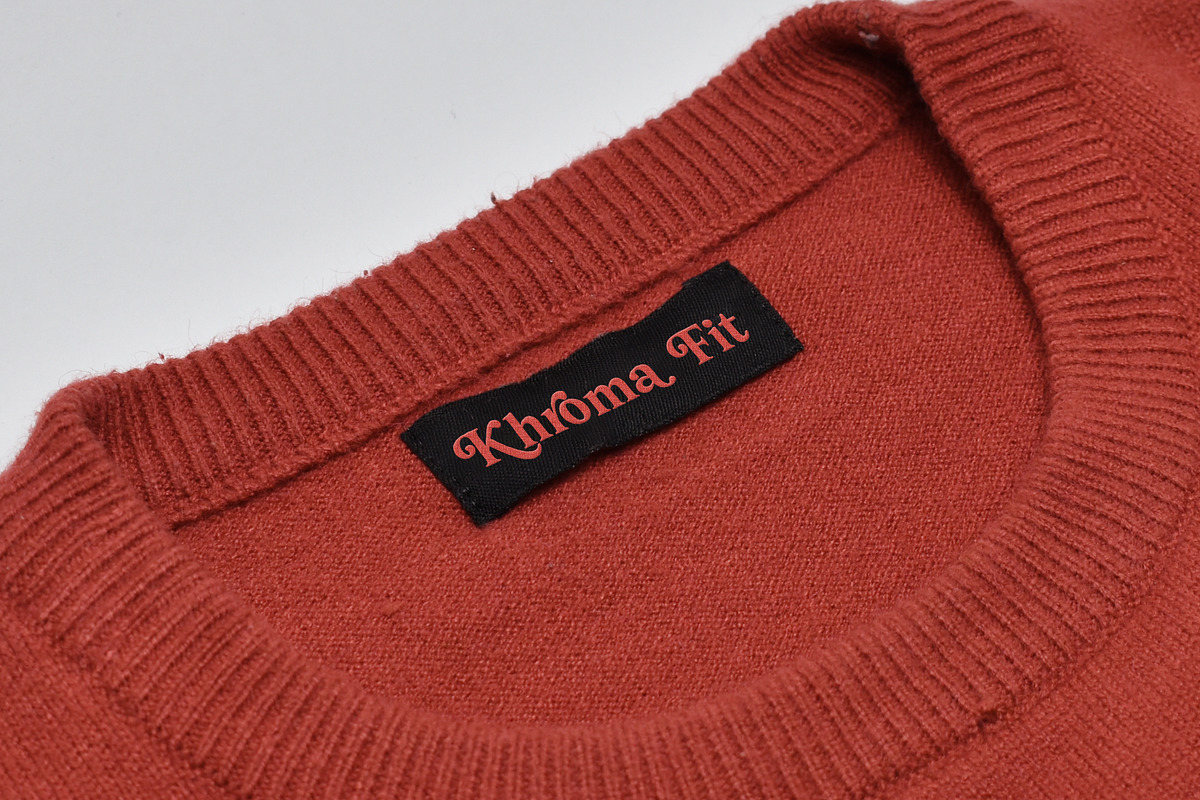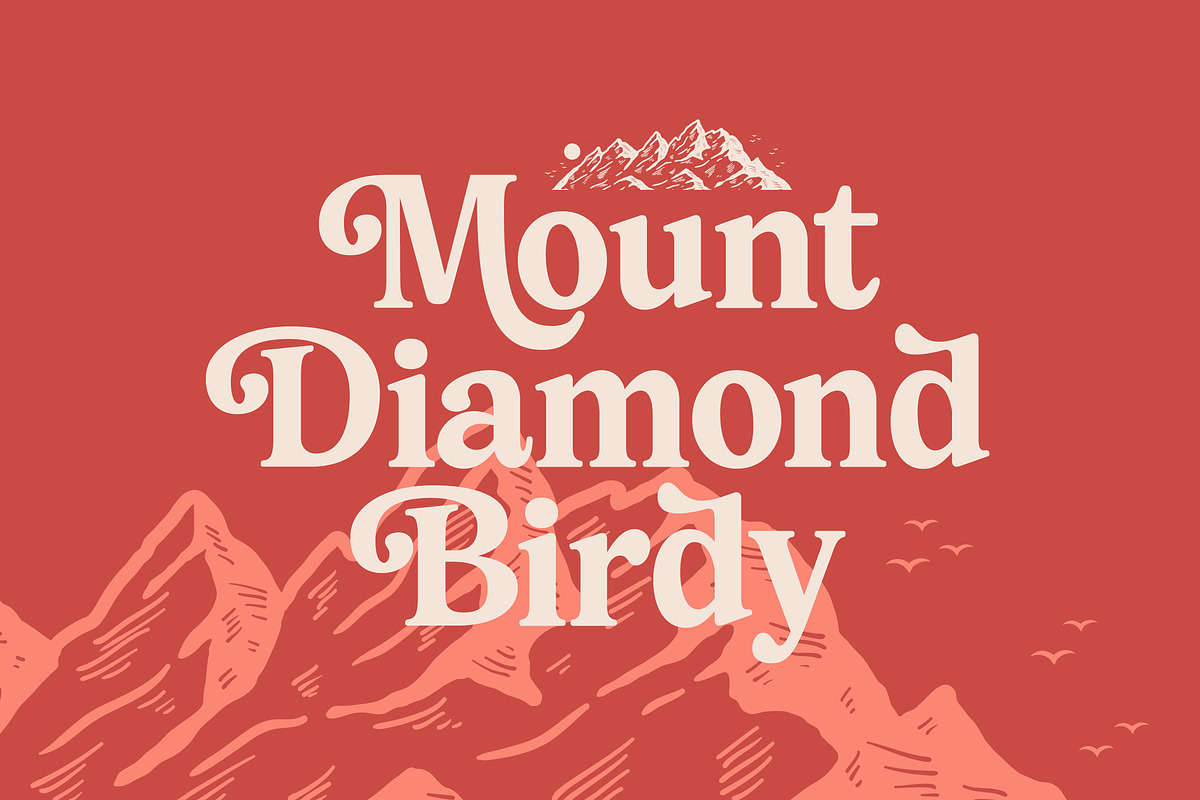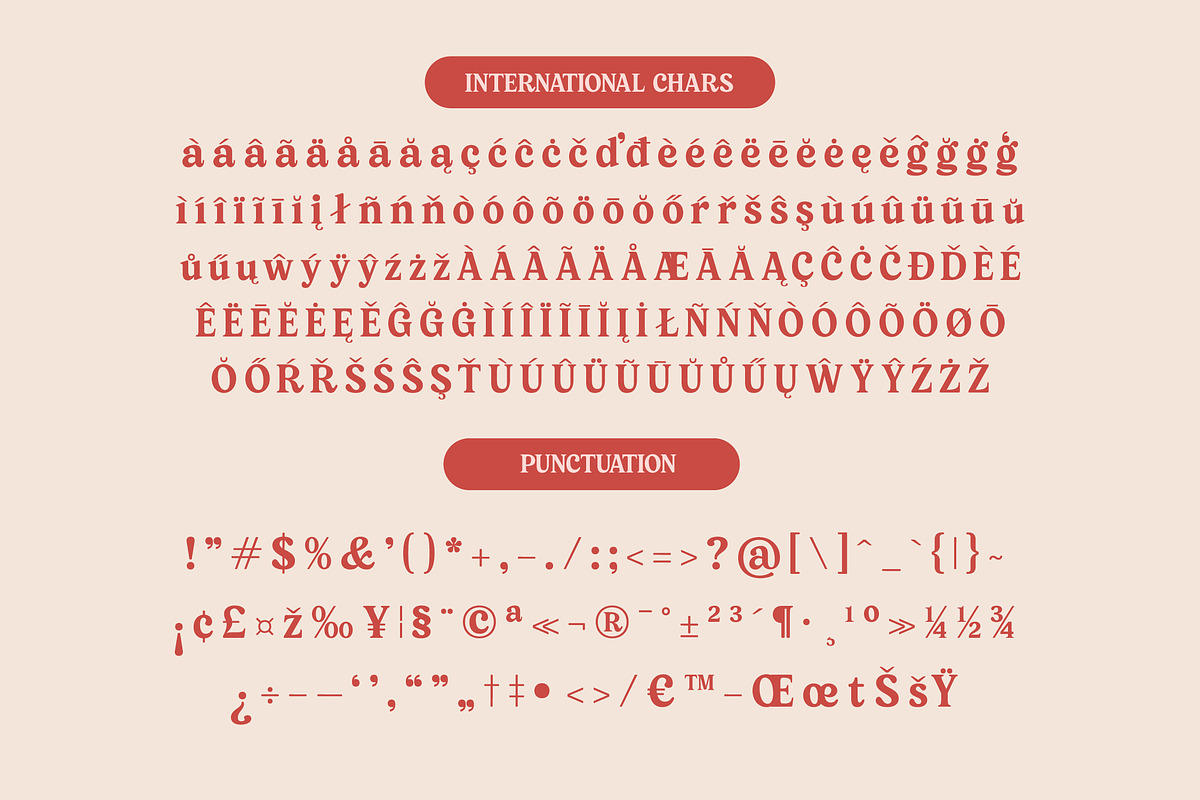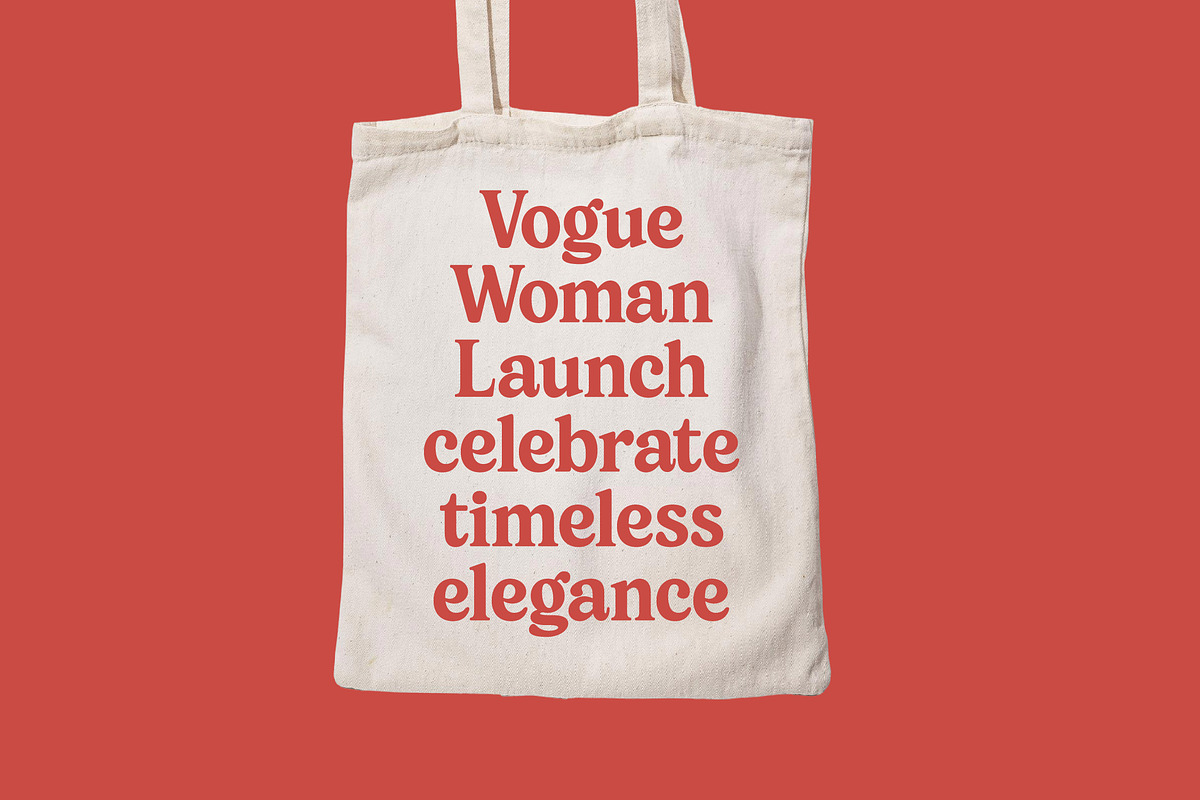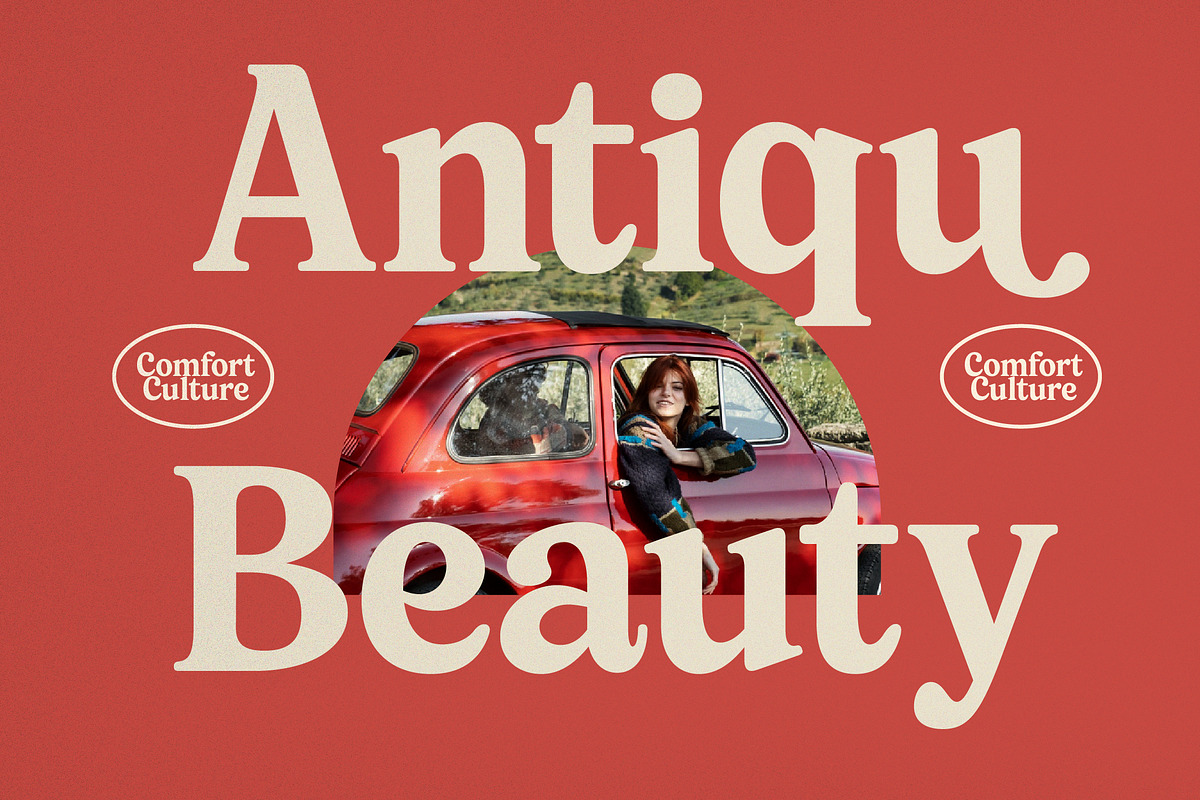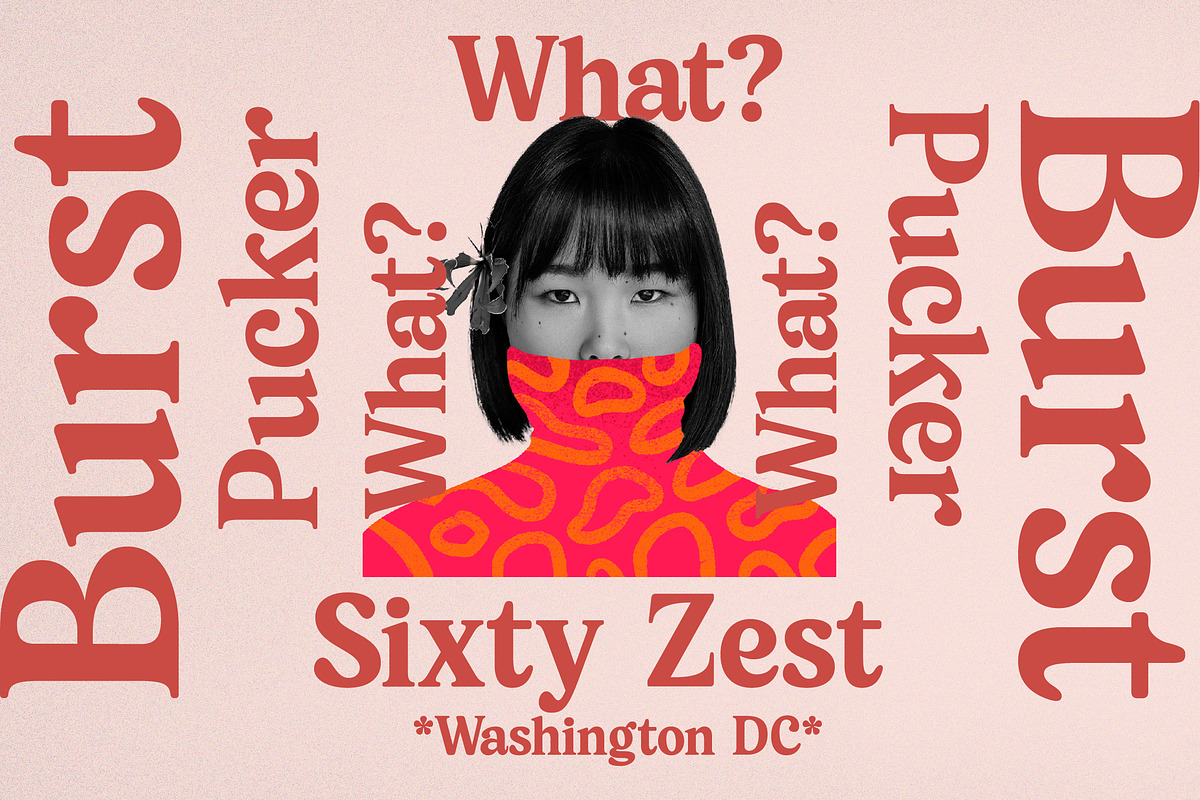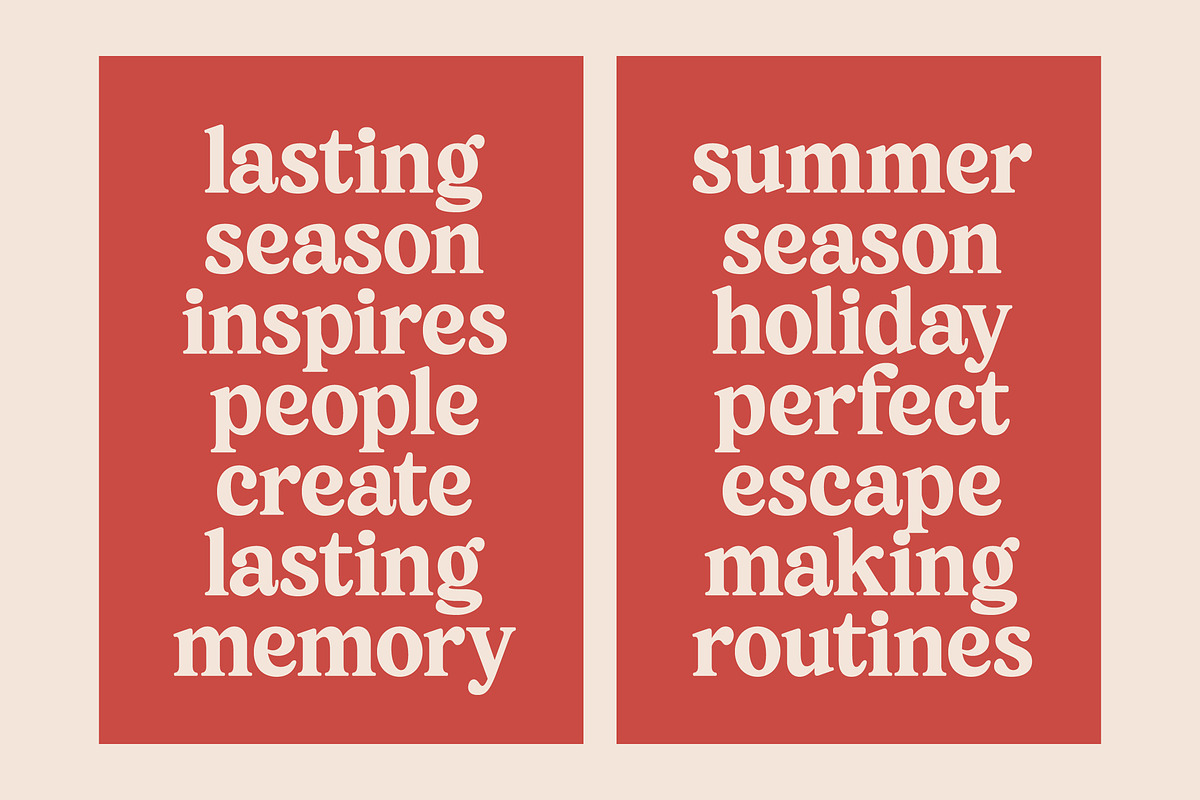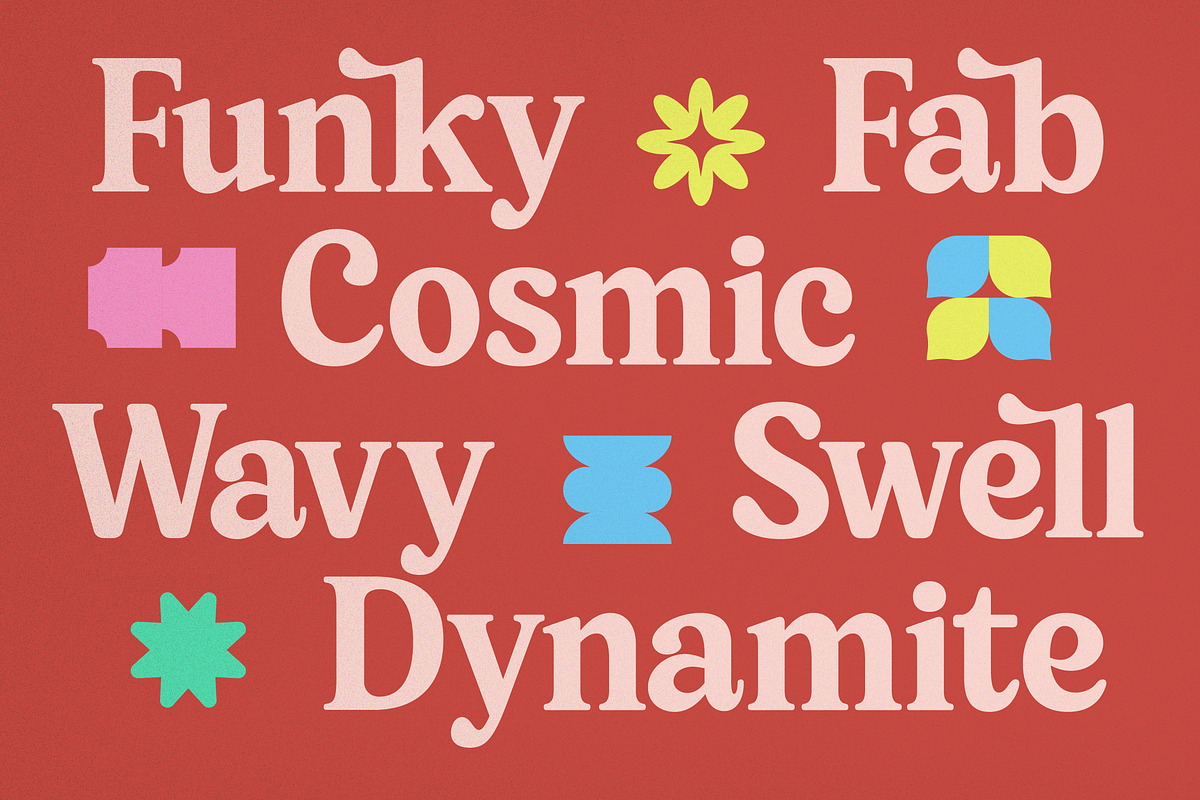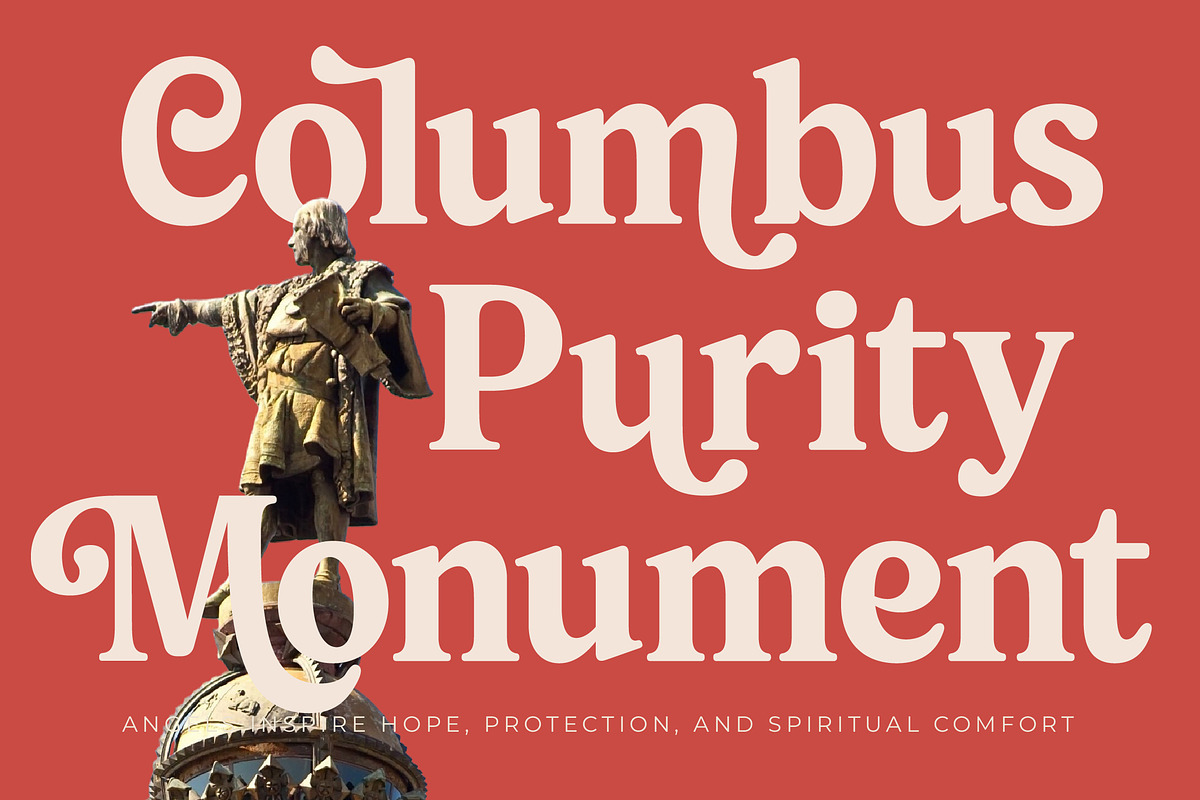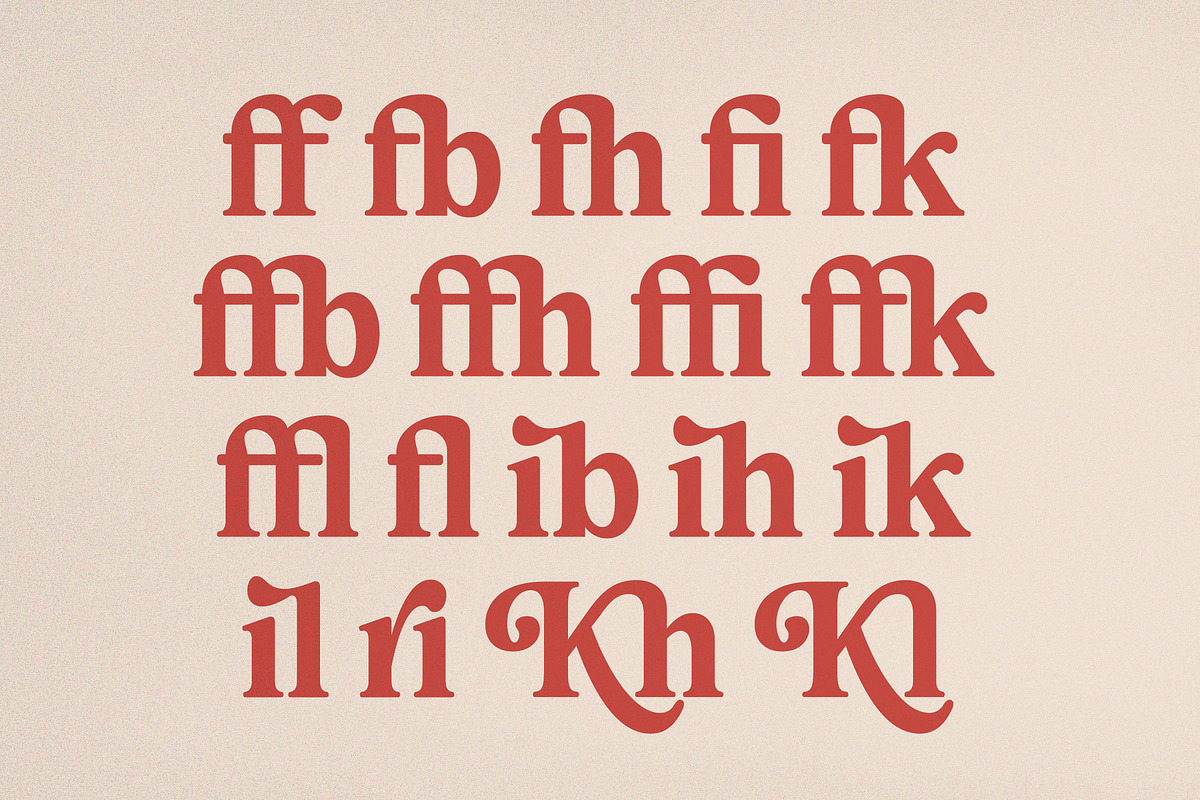
Klaten Yuforia Modern Bold Serif
Experience the captivating allure of Klaten Yuforia, a masterfully crafted typeface that blends vintage charm with contemporary sophistication. This bold serif font commands attention, transforming any design into a visual masterpiece of style and elegance.
Drawing inspiration from the golden era of 1970s editorial design and high-end fashion boutiques, Klaten Yuforia evokes a sense of nostalgic luxury. Its fluid curves and sharp serifs create a rhythmic dance across the page, capturing the essence of a timeless aesthetic that feels both heritage-rich and strikingly fresh.
This modern serif display is engineered for maximum branding impact, offering a unique high-contrast serif look that screams prestige. As a versatile editorial font, it provides a perfect balance between readability and artistic expression, making it an essential tool for luxury typography projects.
Perfectly aligned with the current modern serif trend, Klaten Yuforia taps into the demand for character-driven typography that tells a story. It stands out among editorial display fonts by offering a bespoke feel that elevates commercial projects to a curated gallery level.
From high-impact logo design to sophisticated fashion layouts, this font excels in diverse creative environments. It is the ideal choice for premium packaging, romantic wedding invitations, and cohesive corporate branding suites that require a touch of modern class.
Unlock your creative potential with the included ligatures and alternates that allow for custom-tailored letterforms. The font also features a wide range of international characters and provides comprehensive multilingual support for global design projects.